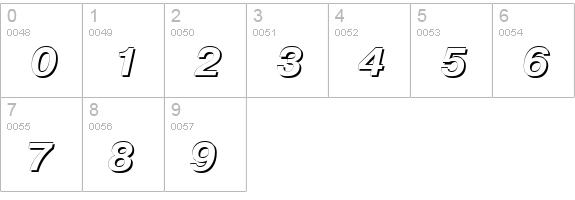
PragmaticaShadowC Bold Italic Font Details
PragmaticaShadowC Bold Italic is a strong, high-contrast, italic variant in the PragmaticaShadowC typeface family \xE2\x80\x94 well suited to headlines, attention-grabbing titles, and strong calls-to-action.
PragmaticaShadowC Bold Italic font is a striking and versatile typeface that seamlessly balances boldness with elegance. Its distinctive shadow effect adds depth and dimension to any text, making it perfect for headlines, titles, and branding projects. The italicized style brings a touch of sophistication and modernity to your designs, creating a dynamic visual impact. What sets PragmaticaShadowC Bold Italic font apart is not only its aesthetic appeal but also its practicality. The font is designed with readability and usability in mind, ensuring that your message is conveyed clearly and effectively. Whether used for print or digital media, this font exudes confidence and professionalism. And the best part? PragmaticaShadowC Bold Italic font is available for free download at FontsMarket.com. Now you can enhance your projects with this high-quality typeface without breaking the bank. Don't miss out on the opportunity to elevate your designs with the bold and italic charms of PragmaticaShadowC.